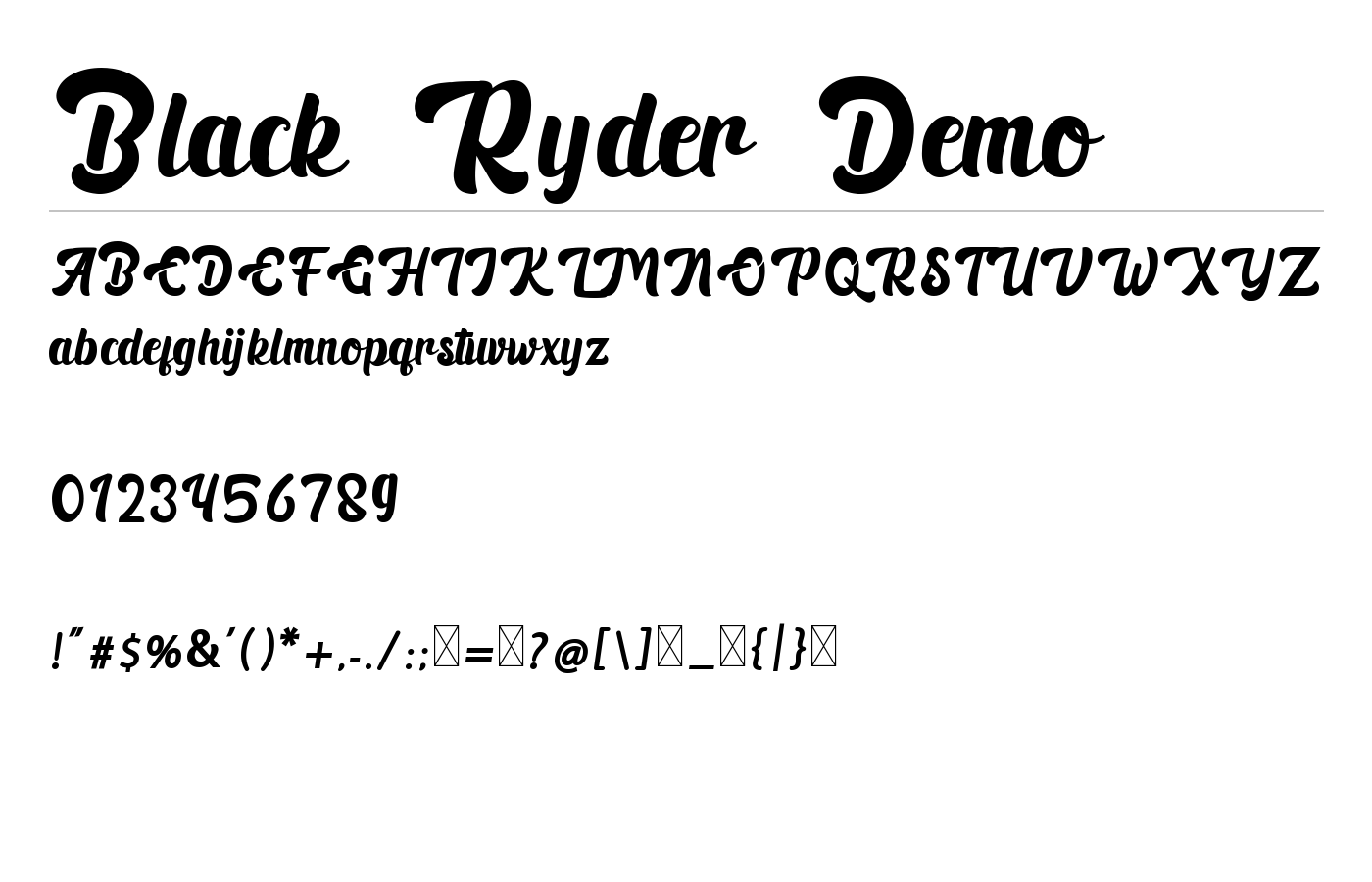
Black Ryder Demo is a bold, brush script font with a playful and energetic vibe, featuring smooth, rounded strokes and moderate contrast that create a friendly, handcrafted feel. Its flowing letterforms and distinctive swashes make it perfect for branding, logos, packaging, and headlines where a lively and approachable style is desired. This font shines in creative projects that want to convey warmth and personality with a modern yet casual touch.
Black Ryder Demo Font
About Black Ryder Demo Font